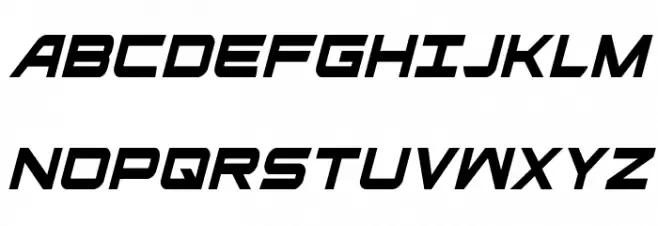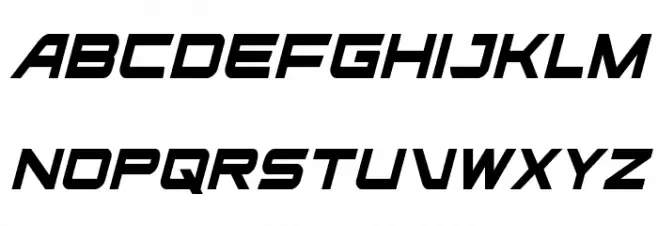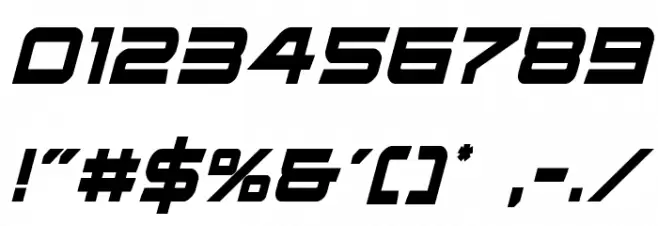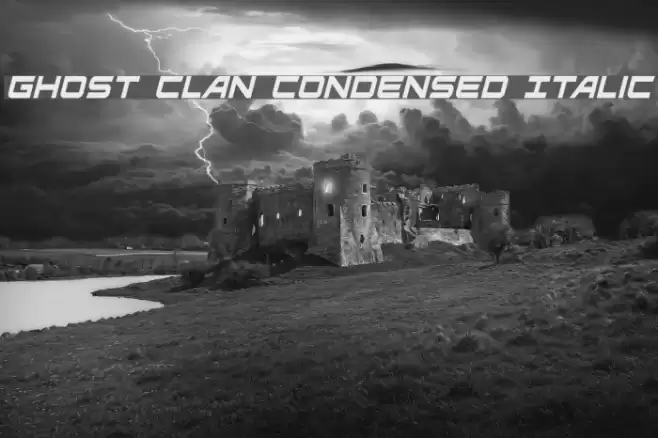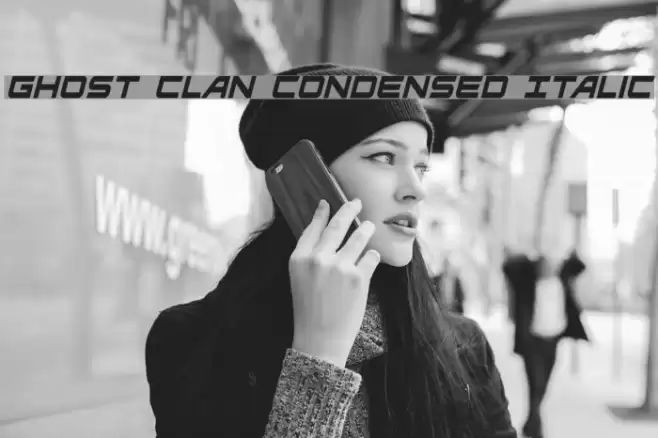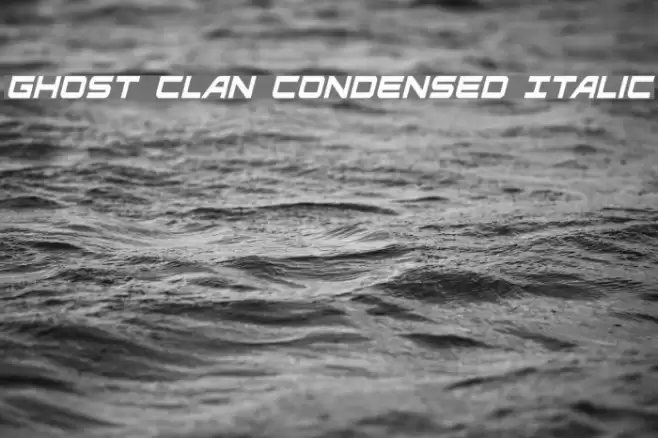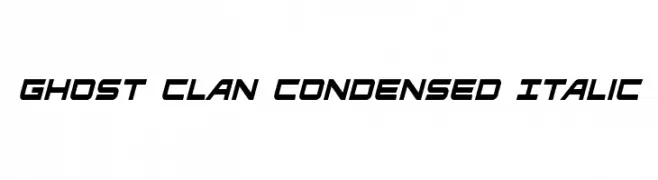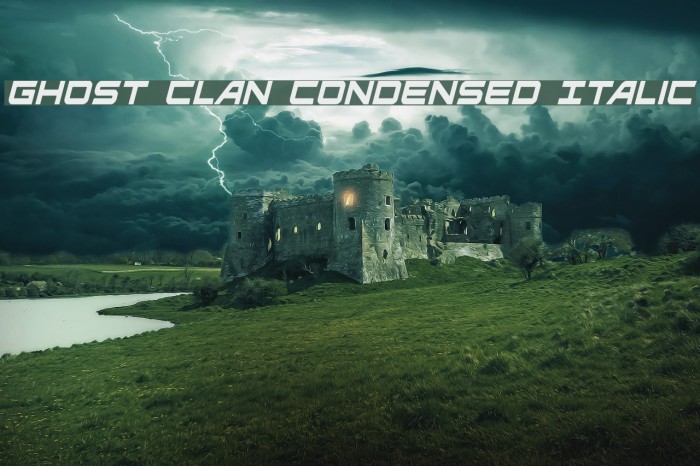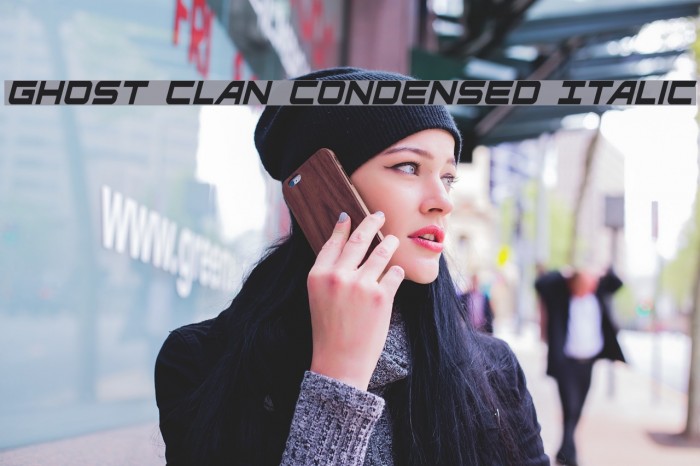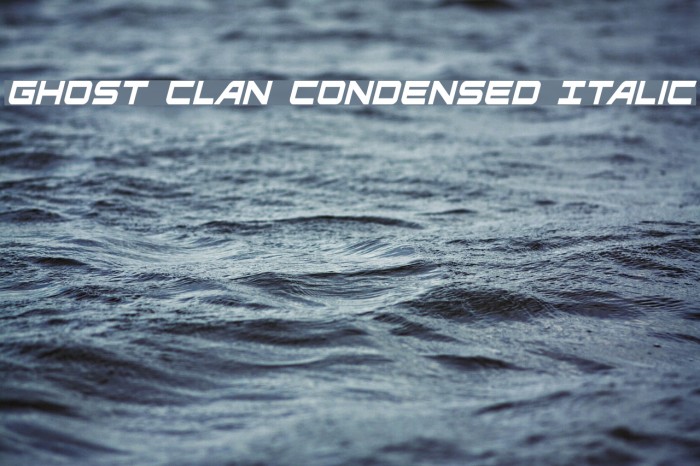
Ghost Clan Condensed Italic
This font features a dynamic and modern design with a condensed and italicized style. The characters are sleek and angular, giving a futuristic and sporty appearance. The uppercase and lowercase letters maintain a consistent slant, enhancing the sense of motion and speed. The numbers and special characters are designed to match the overall aesthetic, providing a cohesive look. This font is ideal for projects that require a bold and energetic feel, such as sports branding, automotive designs, or tech-related themes.
A dynamic, condensed italic font with a modern, sporty look.
- Proposed Projects: Ideal for sports branding, automotive designs, tech-related themes, and dynamic advertising.
- Width: Condensed